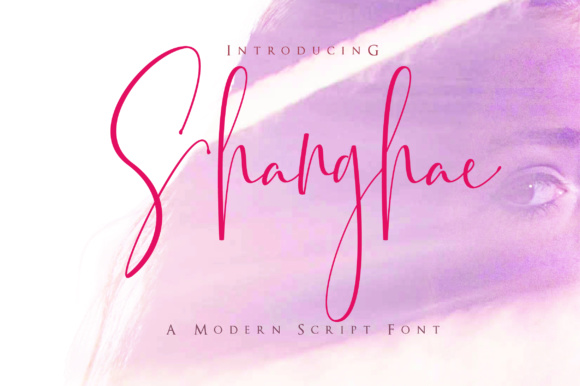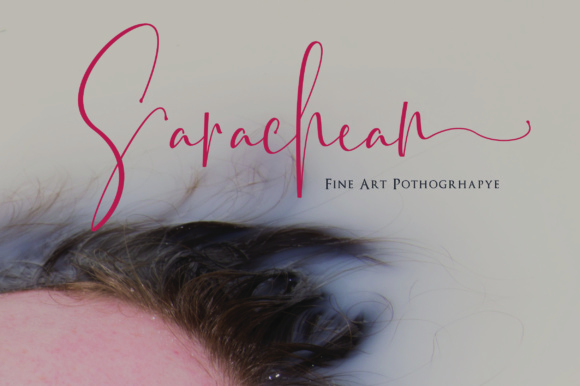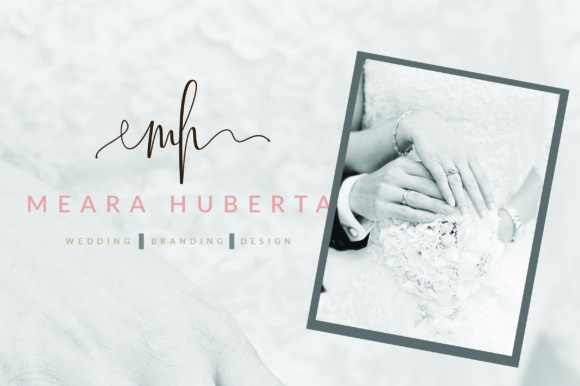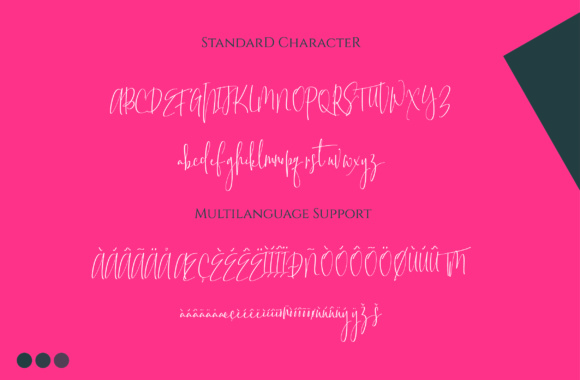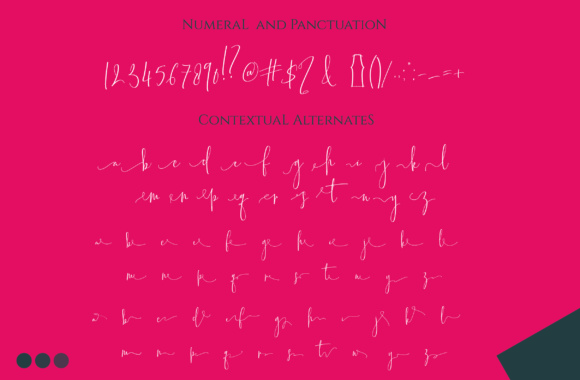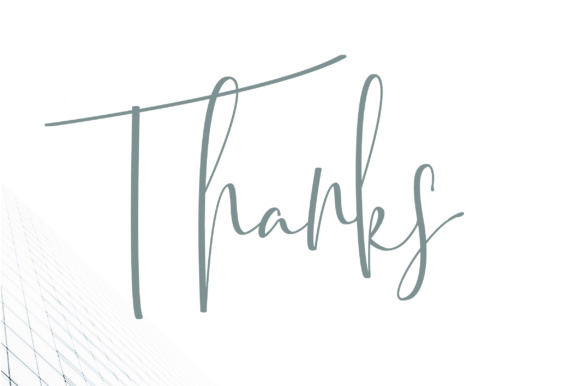
Shanghae Font
About Shanghae Font
The Shanghae is a beautiful script typeface. It had handmade calligraphy and decorative characters.
It’s wonderful on invitations, greeting cards, branding materials, business cards, quotes, posters, and more!